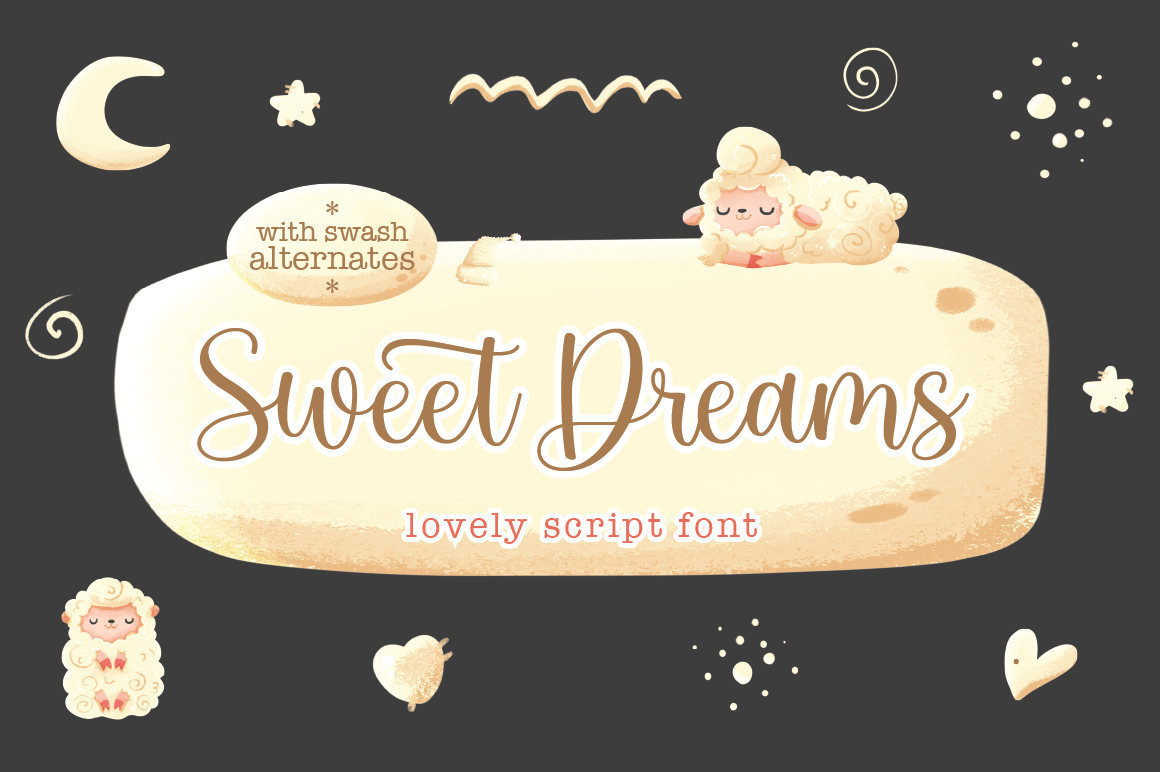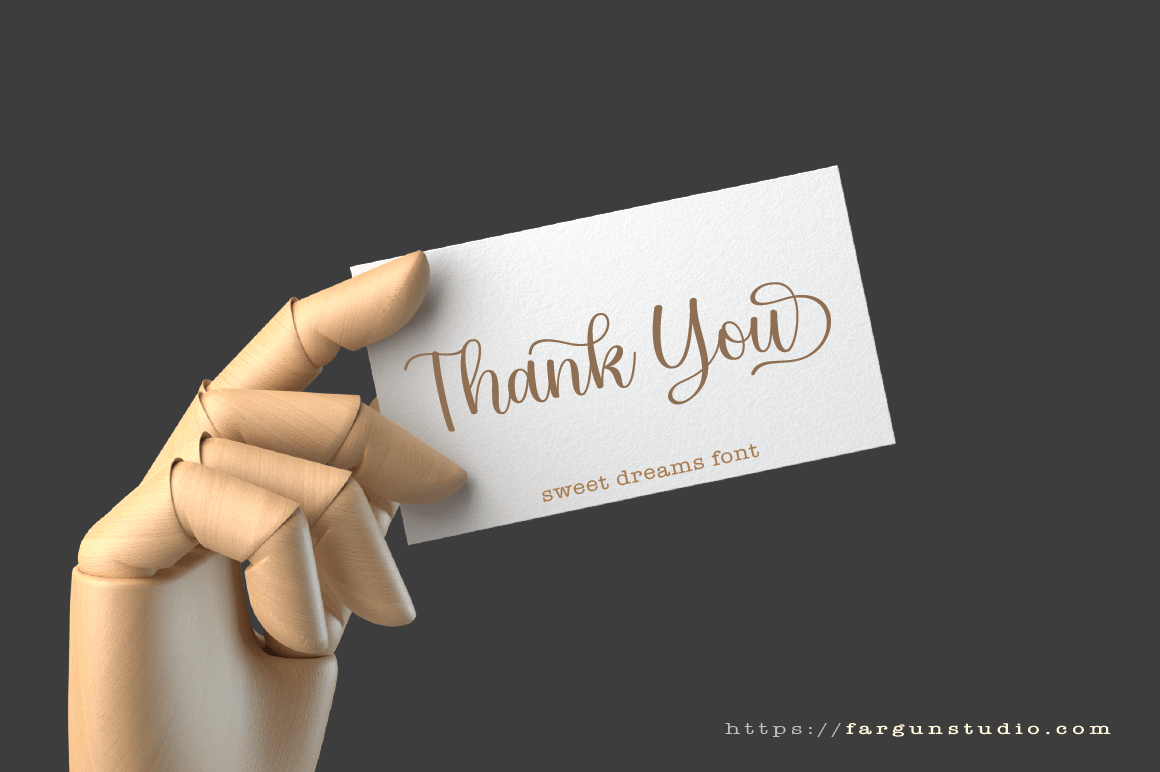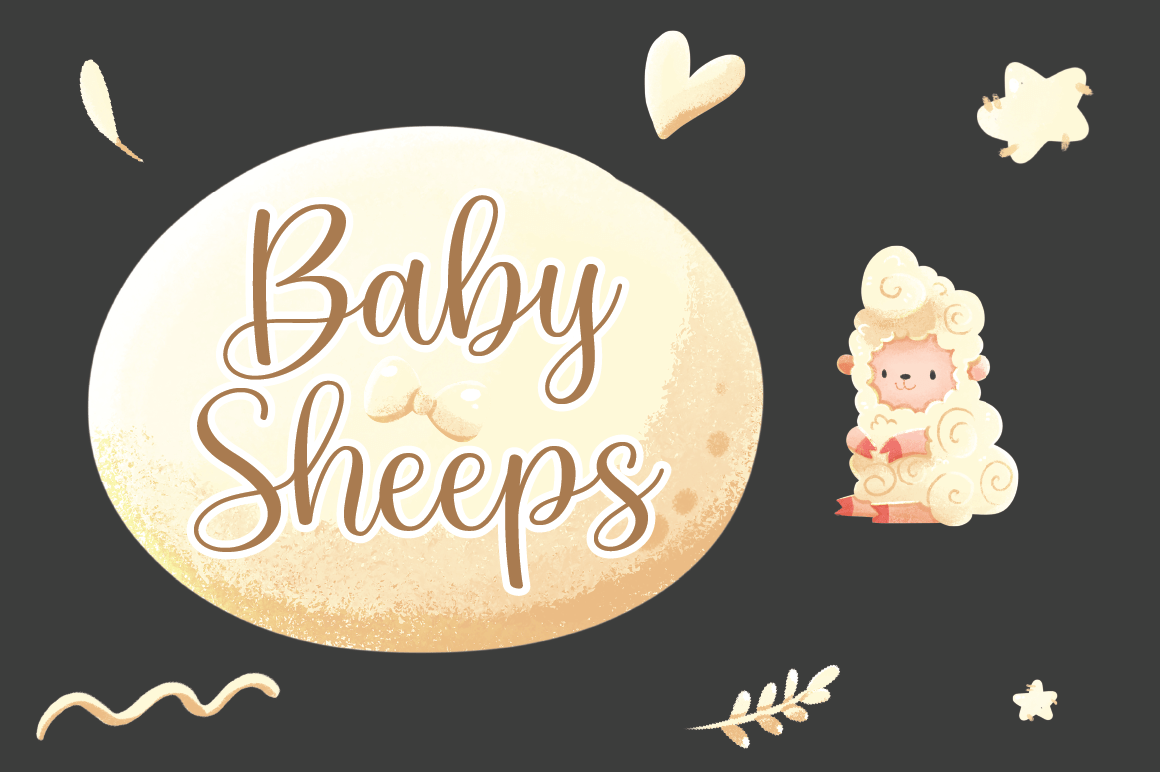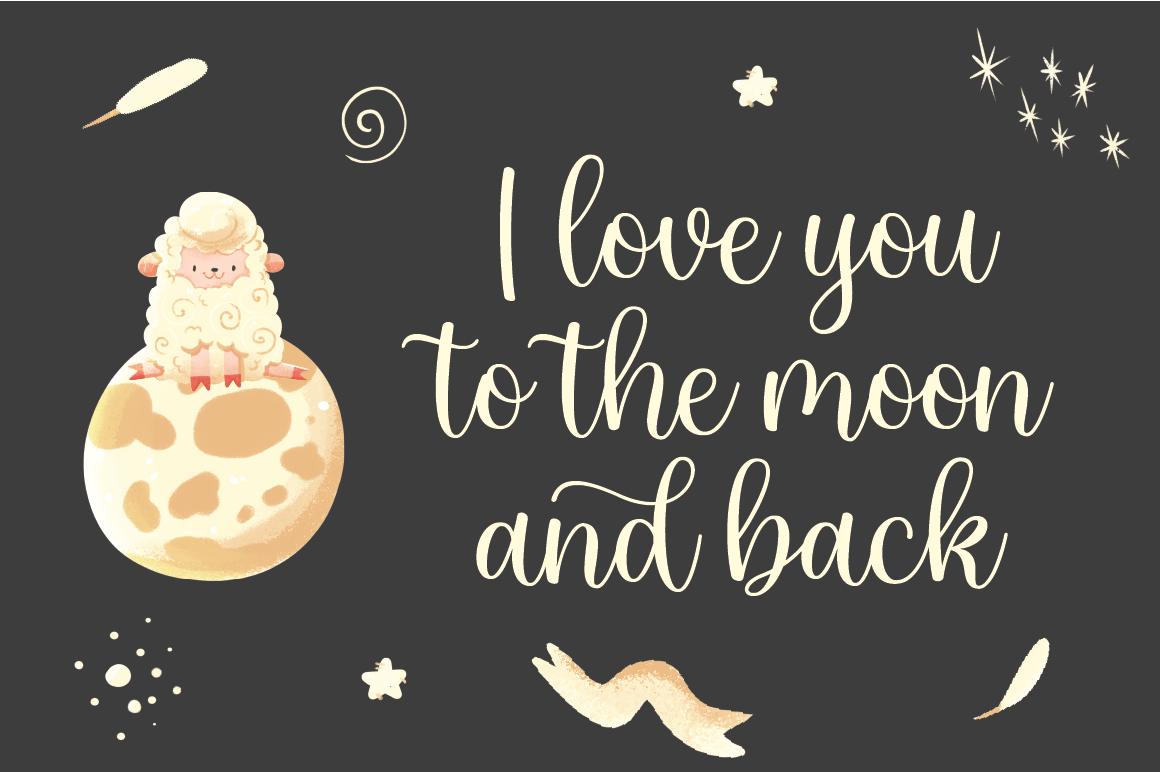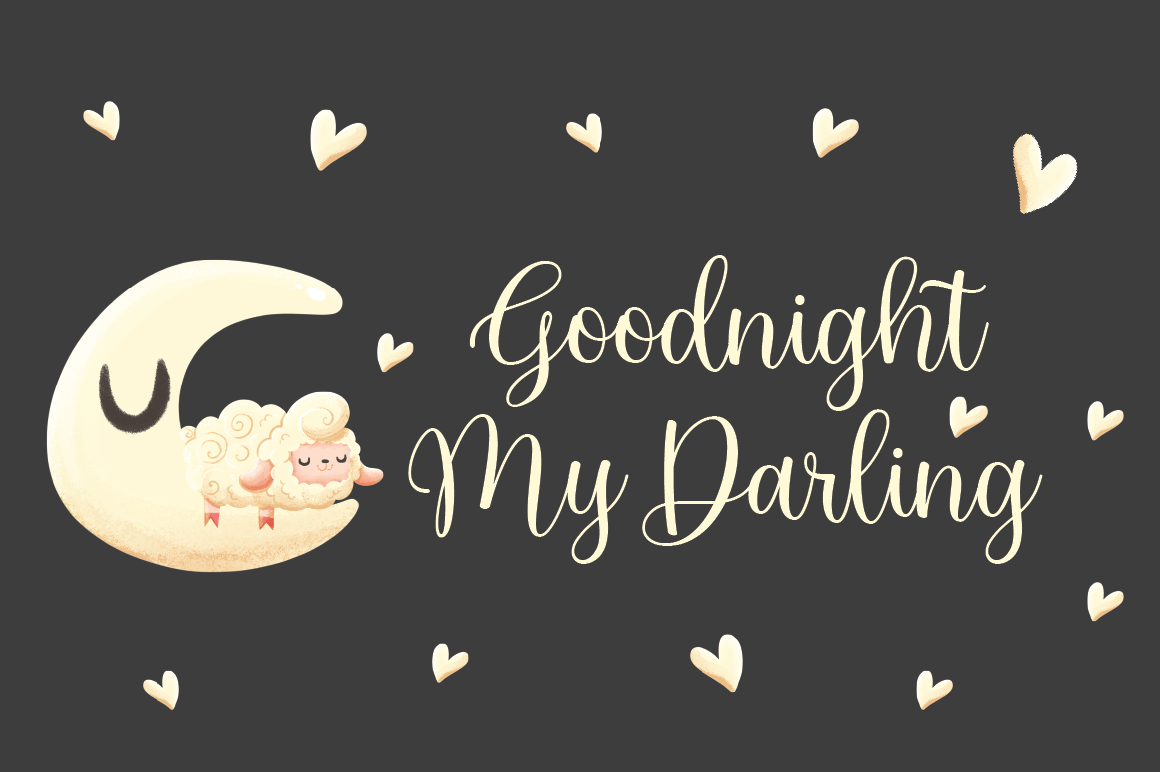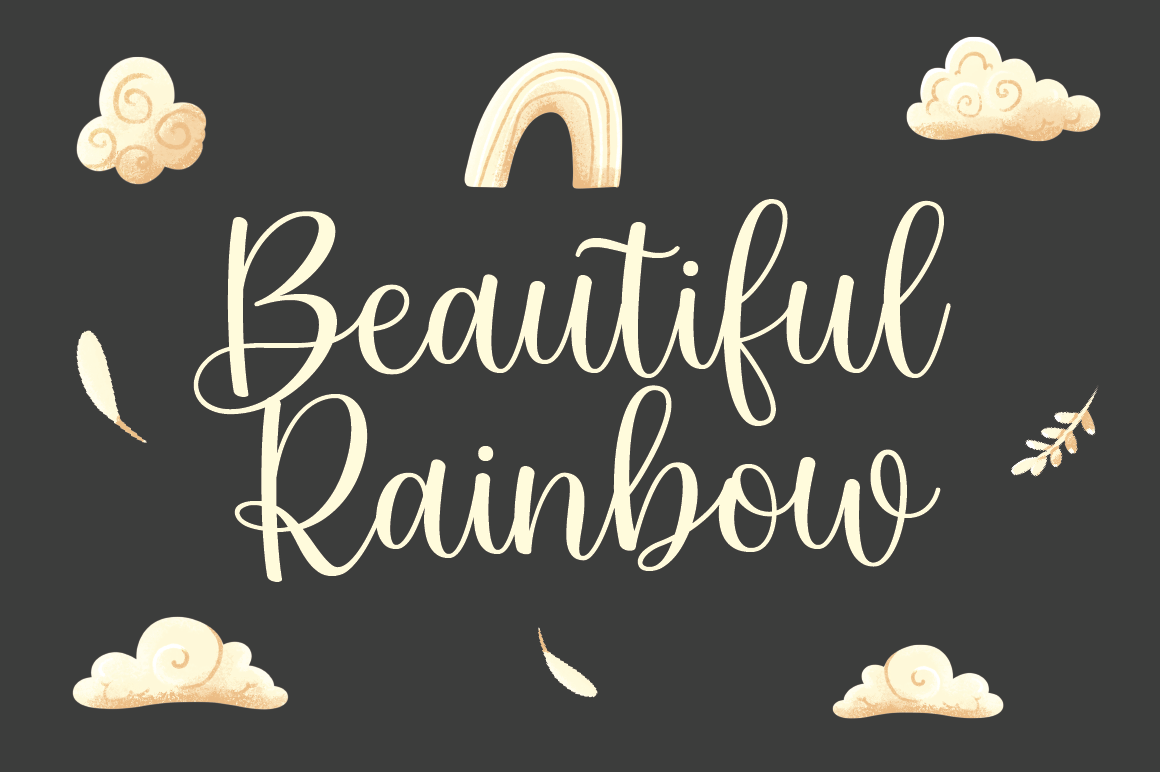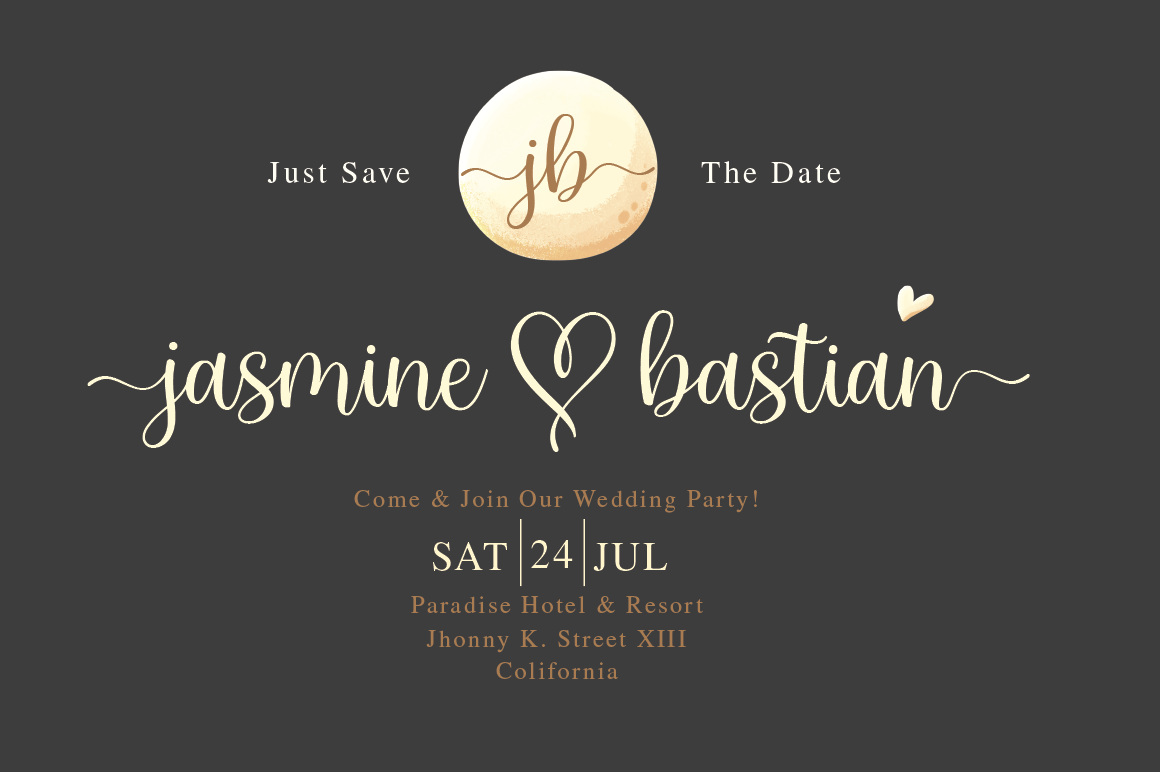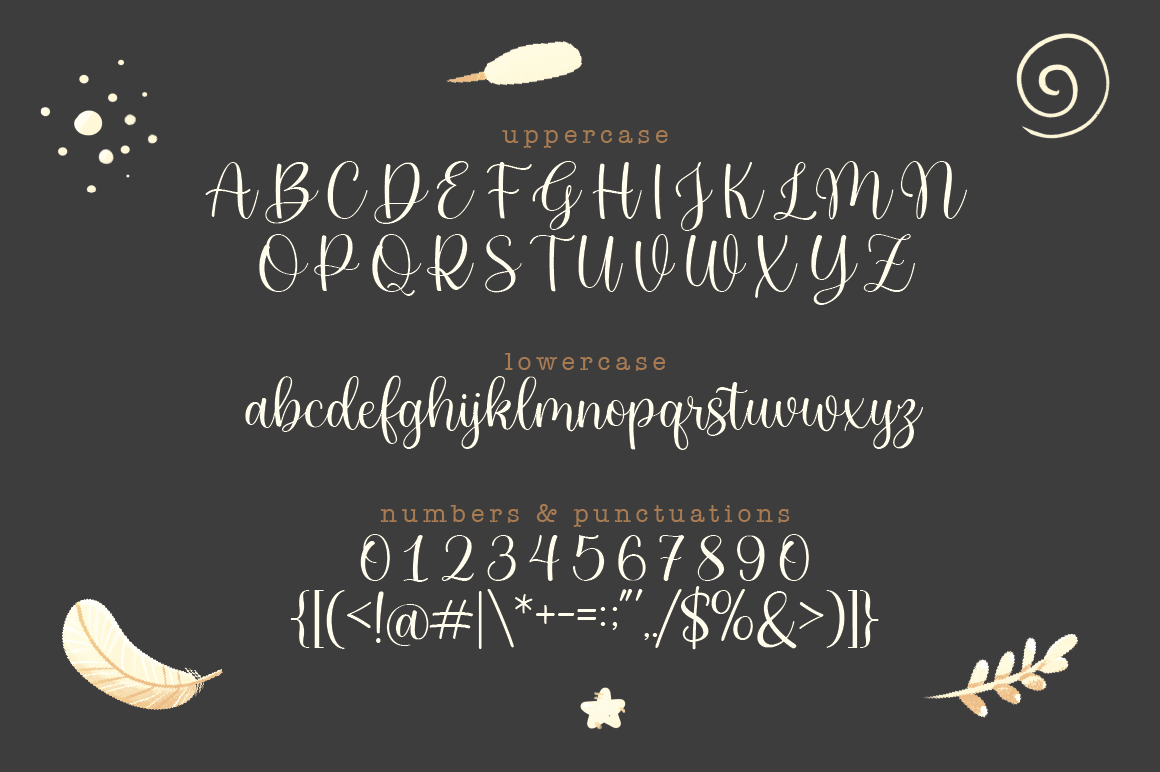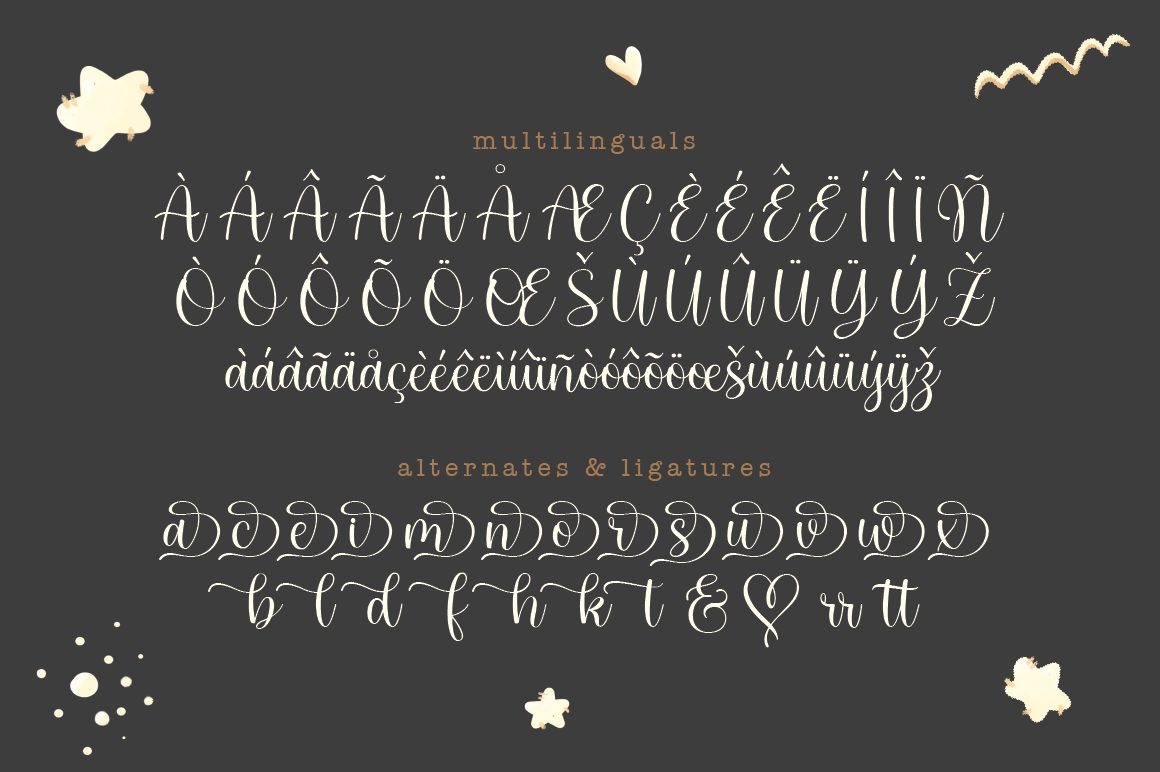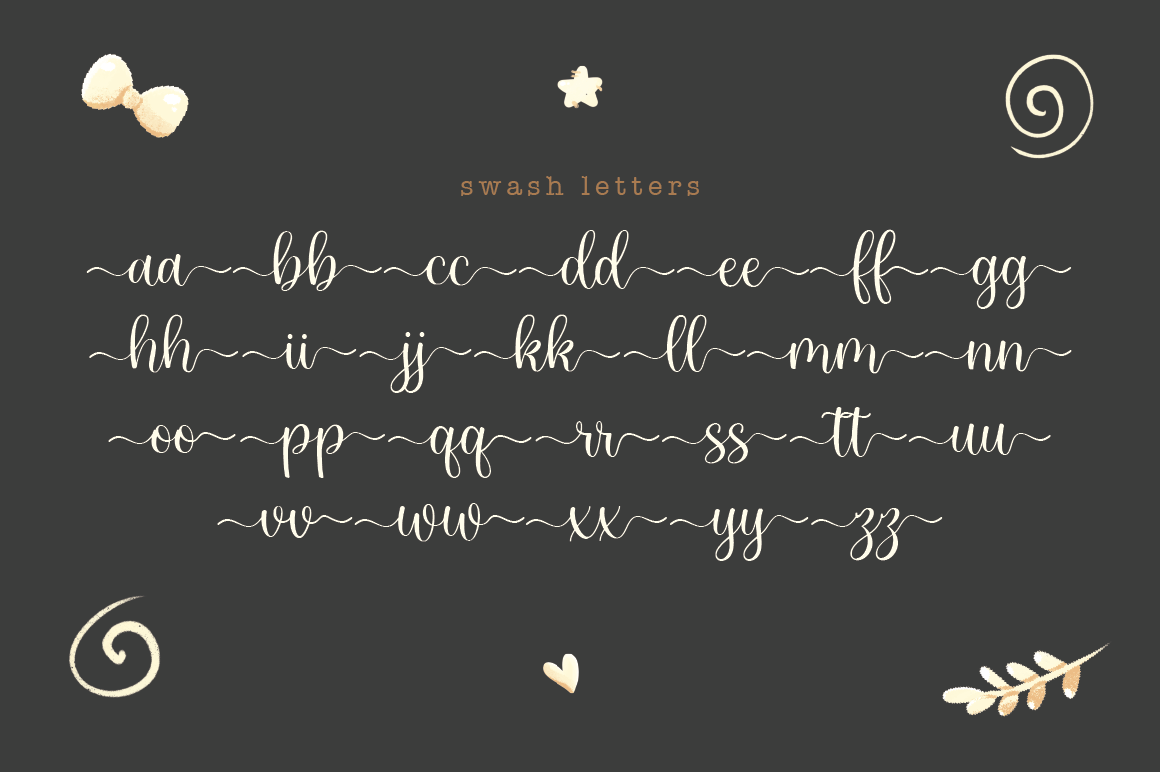
Sweet Dreams
Font Family by Fargun Studio
Sweet Dreams! A new fresh and modern hand-lettered font with decorative characters and a dancing baseline. So beautiful on invitations like handicraft, greeting cards, branding materials, business cards, quotes, posters, and more design concepts.
Features:
Unique ligatures
Stylistic sets
Basic Latin A-Z and a-z
Numbers
International Symbols included
Punctuation